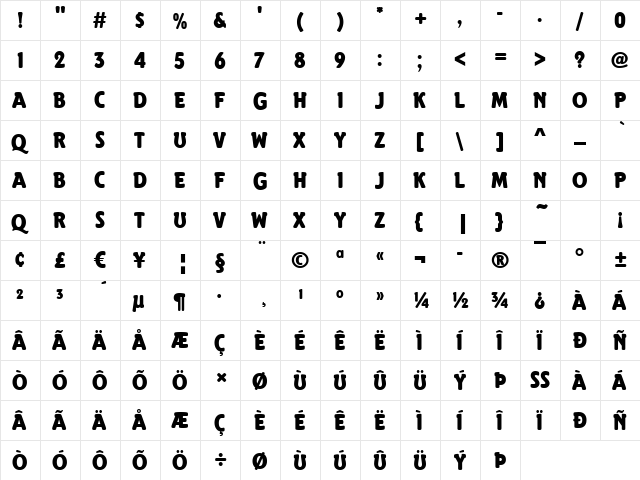
Elmshorn Regular
Design Context for Elmshorn Typeface
Elmshorn offers clean, dependable letterforms without strong stylistic allegiance, making it a practical choice for designers who need flexibility.